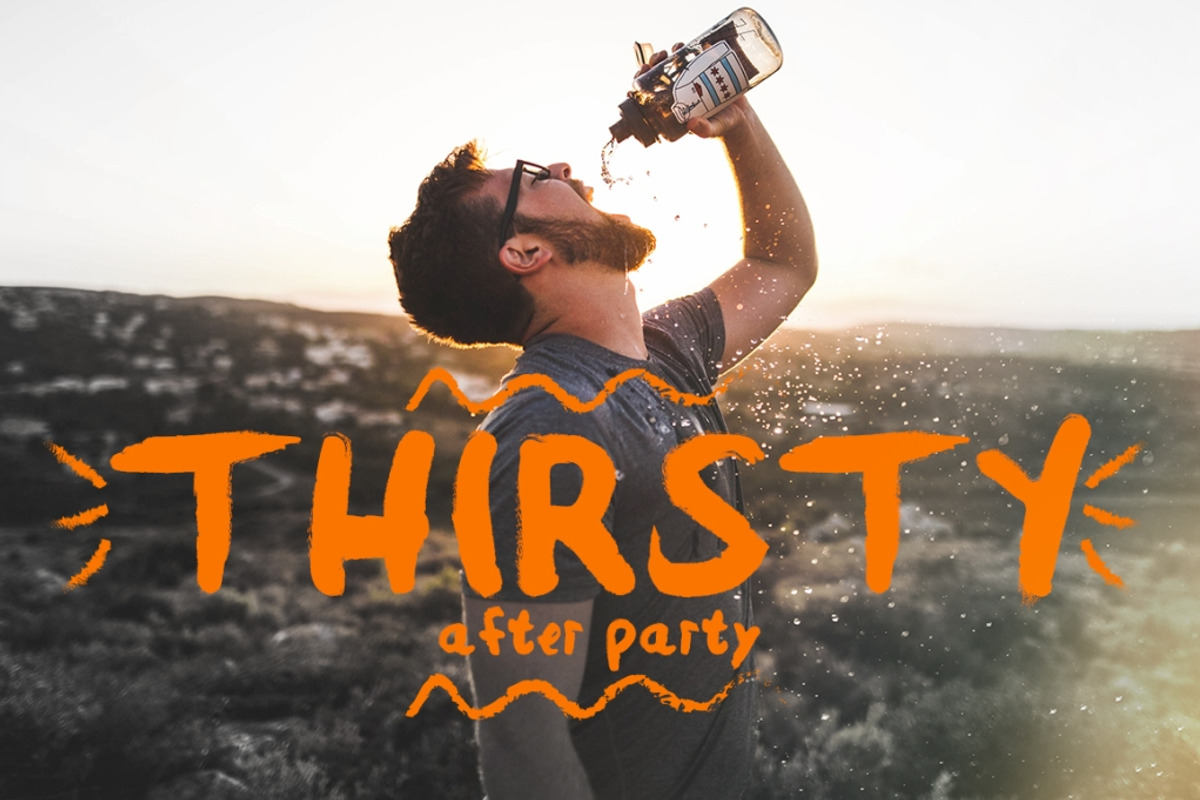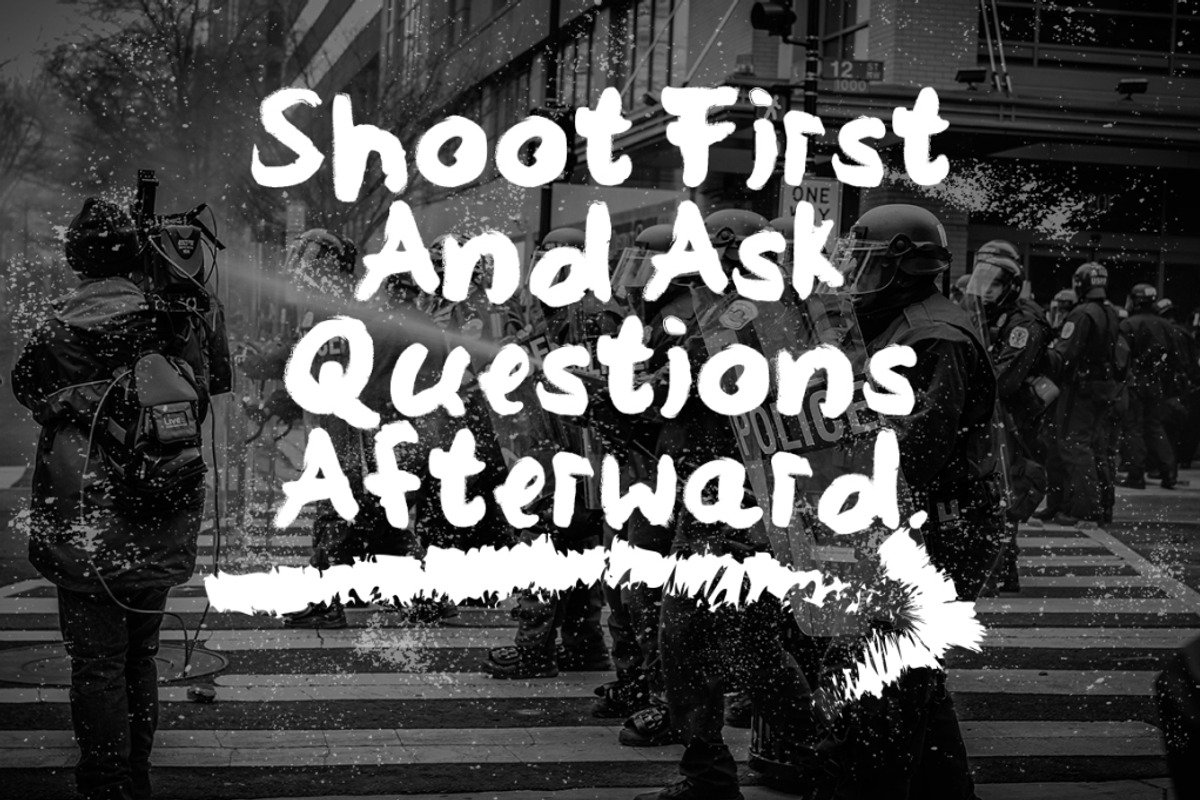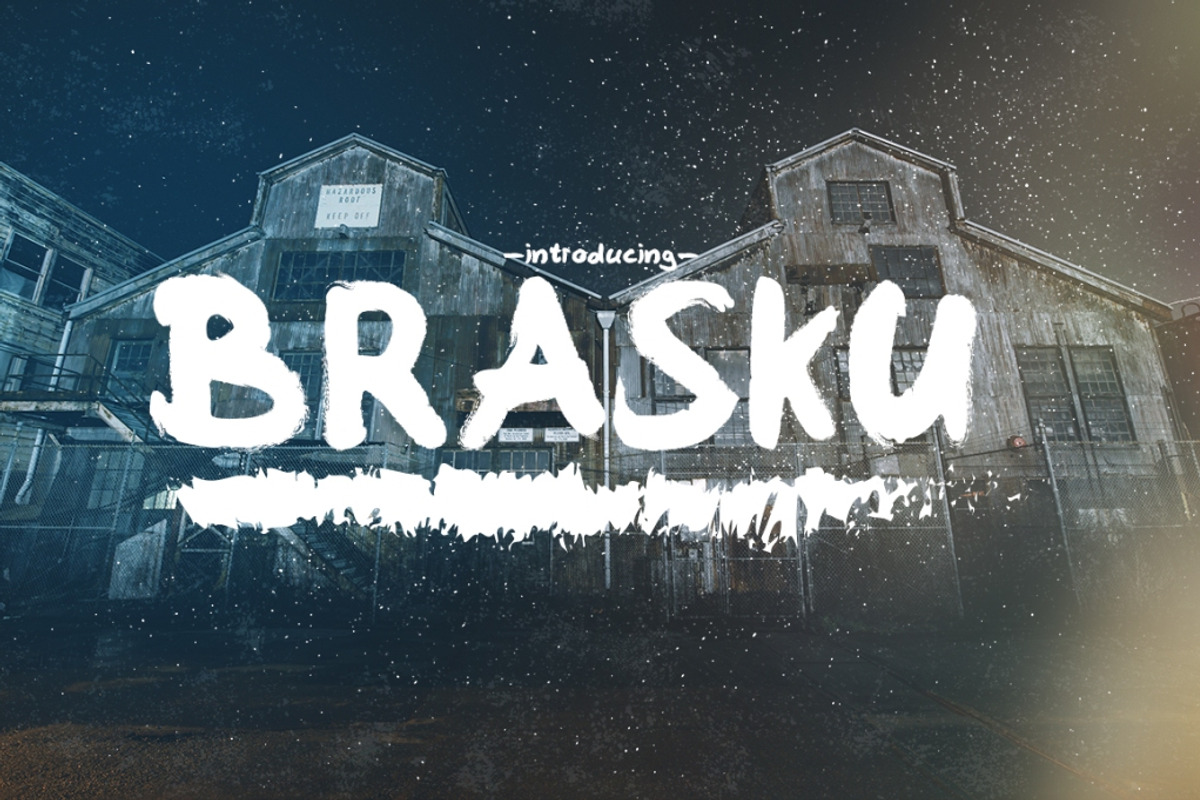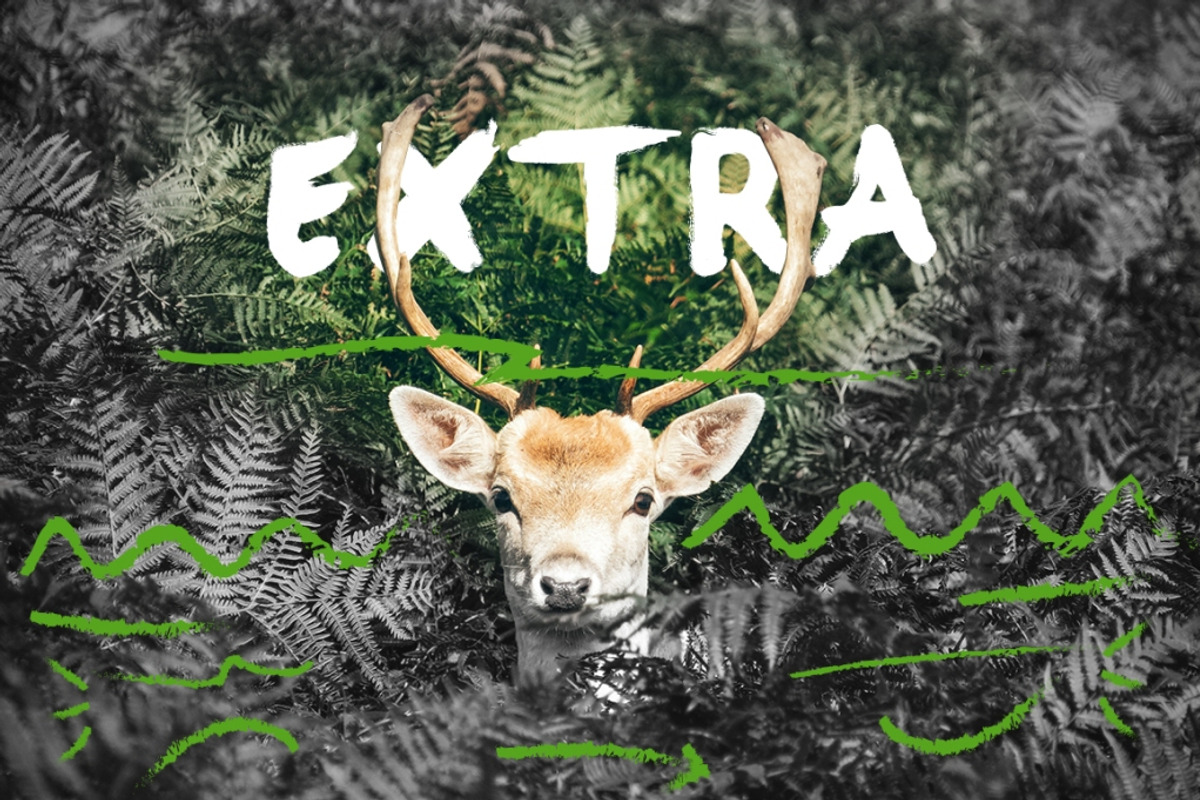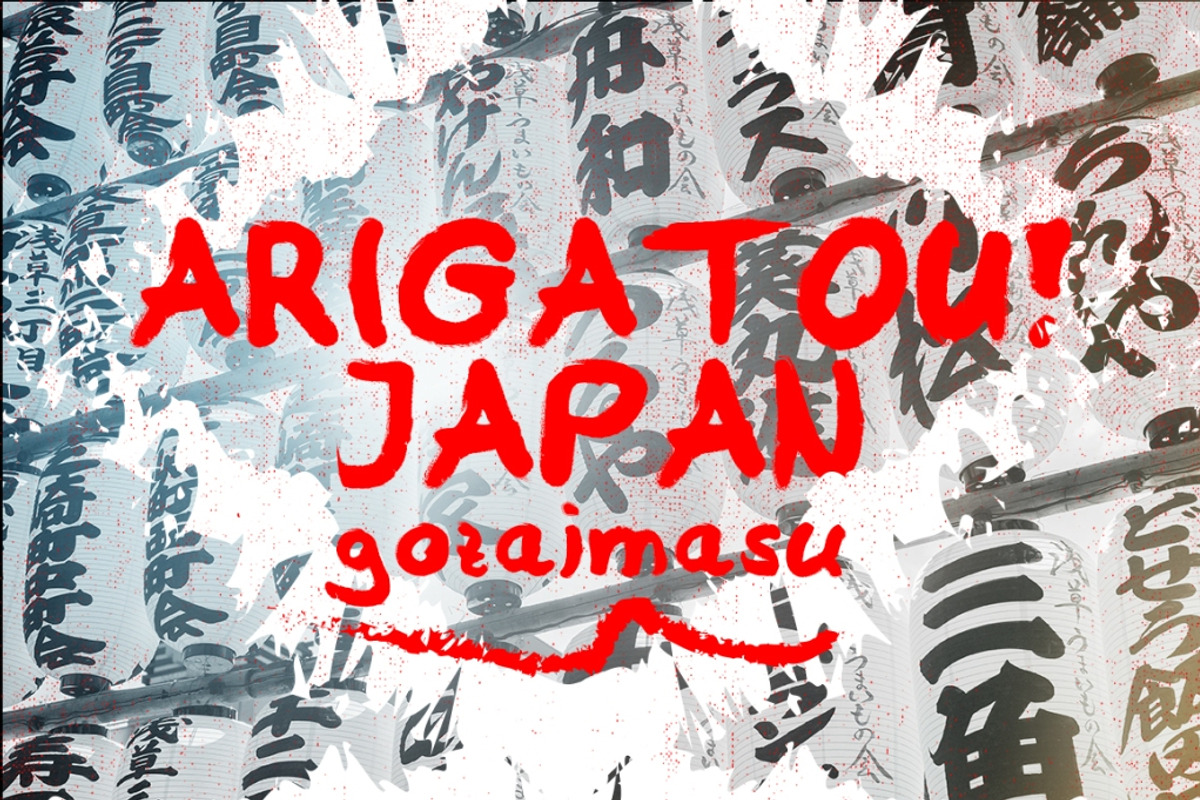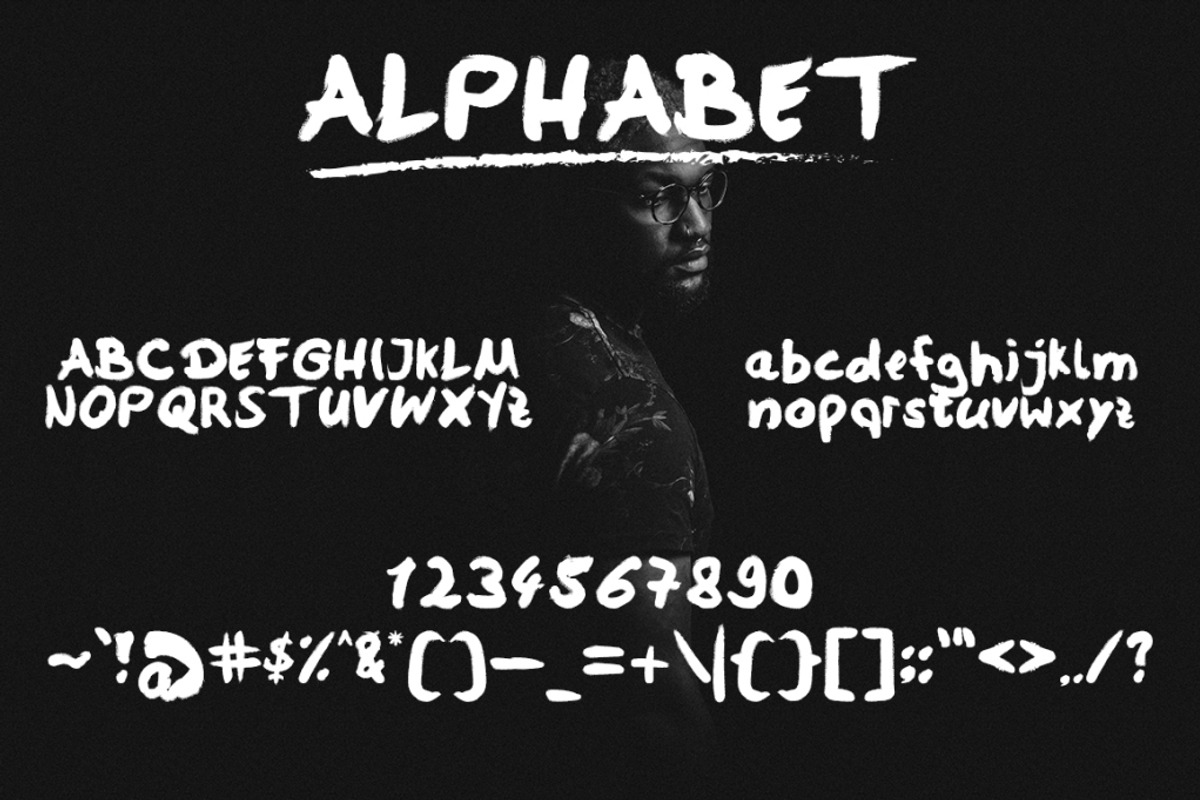
Brasku Font + Extras
Brasku Font + Extras by Khal is a font selected for branding, posters, packaging, typography.
Why Brasku Font + Extras is worth a look
Brasku Font + Extras by Khal fits naturally into Branding, posters, packaging, typography.